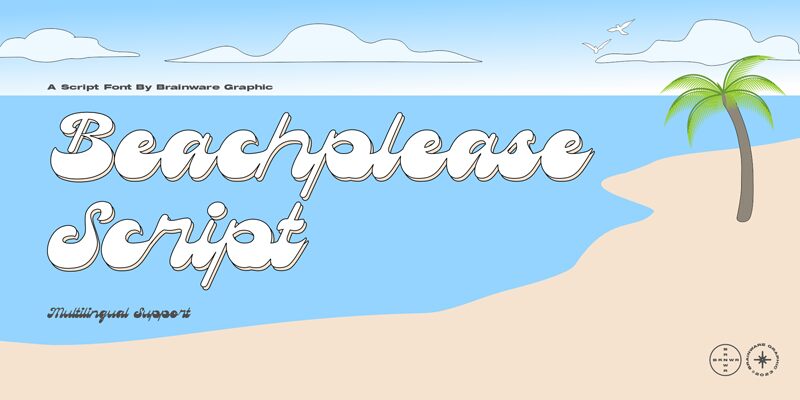
Beachplease Script
Beachplease Script font is what you get when bold, connected letters are combined with high contrast in a Retro Brush style. Carefully tuned connection points create smooth curves and flowing strokes with one closed form and different finials. No detail was too small to be obsessed over, this playful yet casual elegance script leaves no mid-letter curve unspared. So the connected letter method results into playfull mood, making it properly readable from a distance or at small sizes.